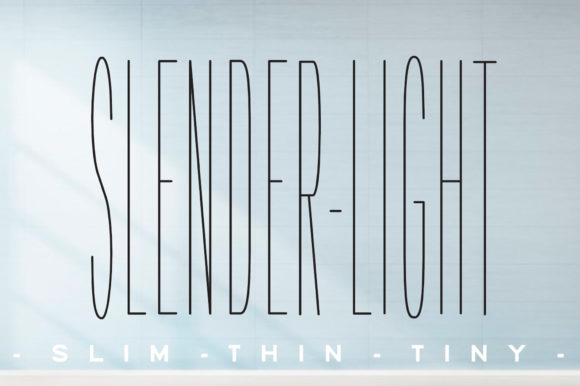
Unleash the enchanting Slender Light Font, an exceptional creation by pointsandpicas, meticulously crafted to captivate your writing endeavors. This ultra-thin, towering sans serif font possesses an innate grace and elegance, effortlessly elevating your words into a symphony of visual delight. Immerse yourself in the boundless possibilities it offers, transforming your creative visions into tangible masterpieces.
With Slender Light as your trusted companion, ordinary text becomes an extraordinary spectacle. Its slender strokes dance across the page, guiding the reader's eyes through your prose with a balletic grace. The font's inherent tall structure lends an air of sophistication and distinction, ensuring your words command attention and leave a lasting impression.
Step into a world where readability and aesthetics intertwine harmoniously. Slender Light's carefully balanced letterforms ensure effortless legibility, even in the most intricate passages. Its clean lines and minimalist design create a visual clarity that invites readers to delve deeper into your narrative, immersing themselves completely in the tapestry of your words.
As an author, you possess the power to transport readers to distant lands, introduce them to unforgettable characters, and ignite their imaginations with tales that stir their souls. With Slender Light as your font of choice, you elevate your storytelling to new heights, captivating your audience with every turn of the page.
Whether you're crafting a gripping novel, an insightful memoir, or a thought-provoking essay, Slender Light seamlessly adapts to your unique style and vision. Its versatility knows no bounds, effortlessly complementing various genres and themes. From historical fiction to contemporary thrillers, from heartwarming romances to dystopian adventures, Slender Light becomes an extension of your creative genius, enhancing your ability to weave tales that resonate with readers on a profound level.
As you pour your heart and soul into your writing, Slender Light stands as a testament to your dedication and artistry. It's a font that respects the power of words, providing them with the perfect canvas to shine. With Slender Light, you embark on a literary journey where your words dance with elegance, captivating readers with their beauty and depth.